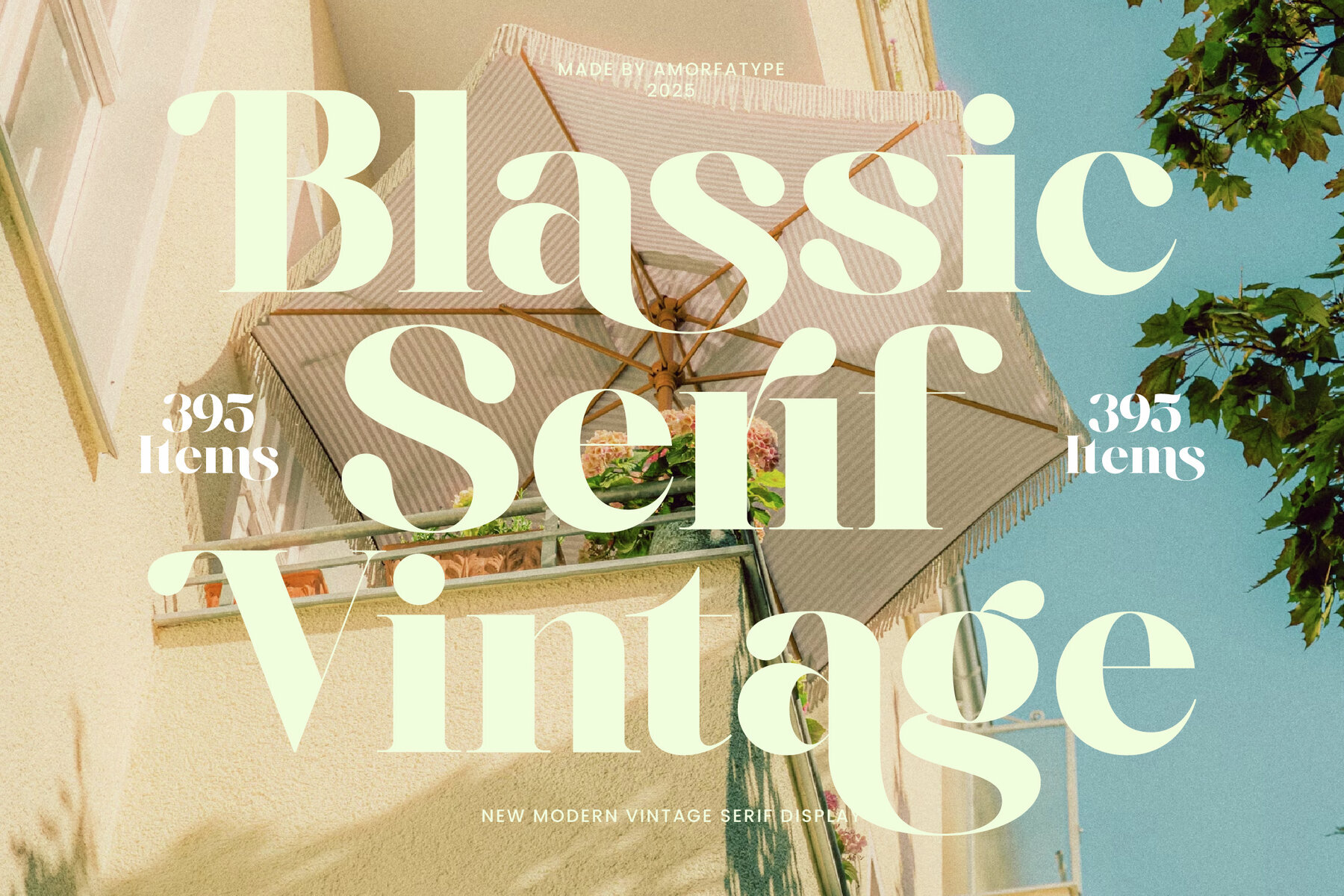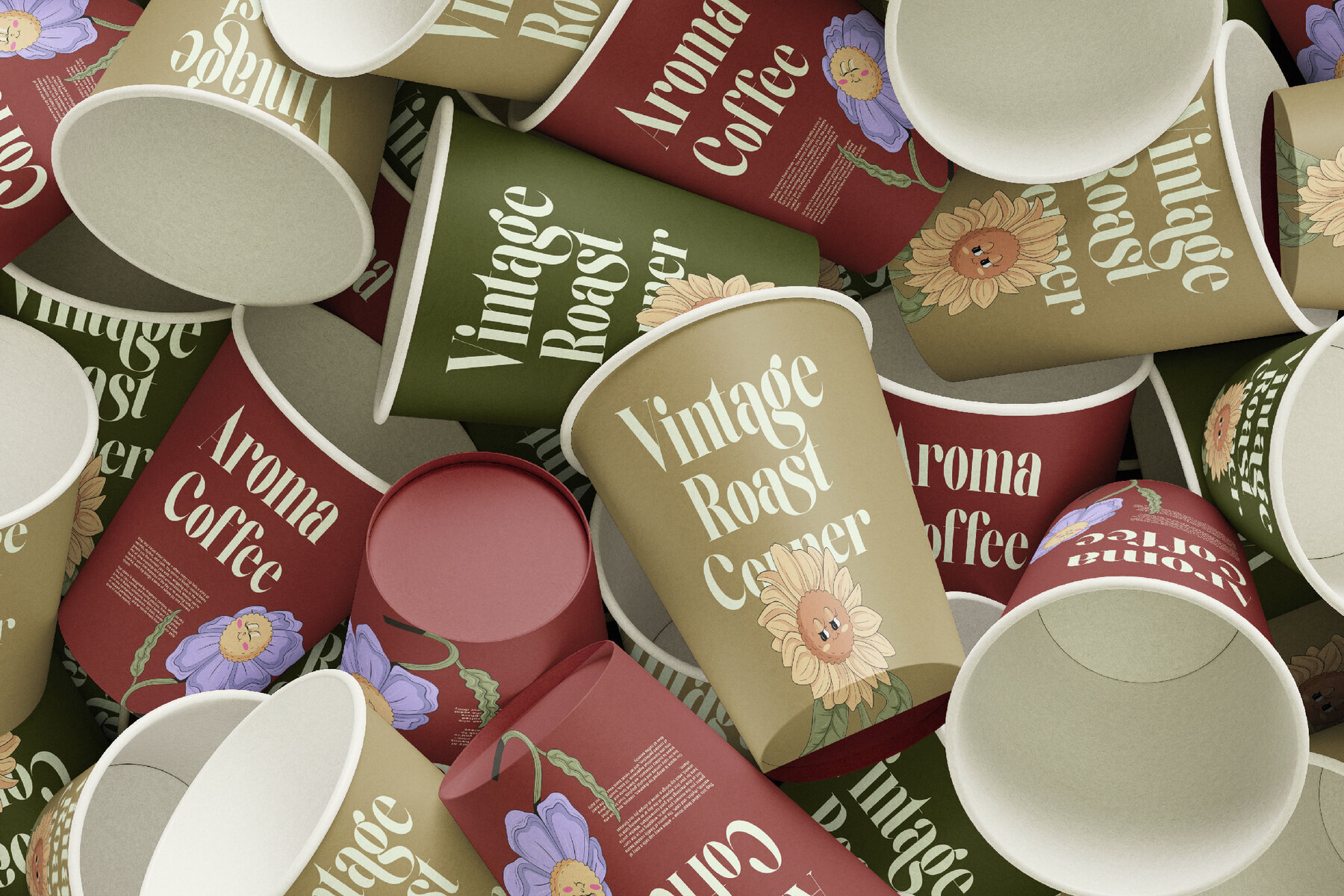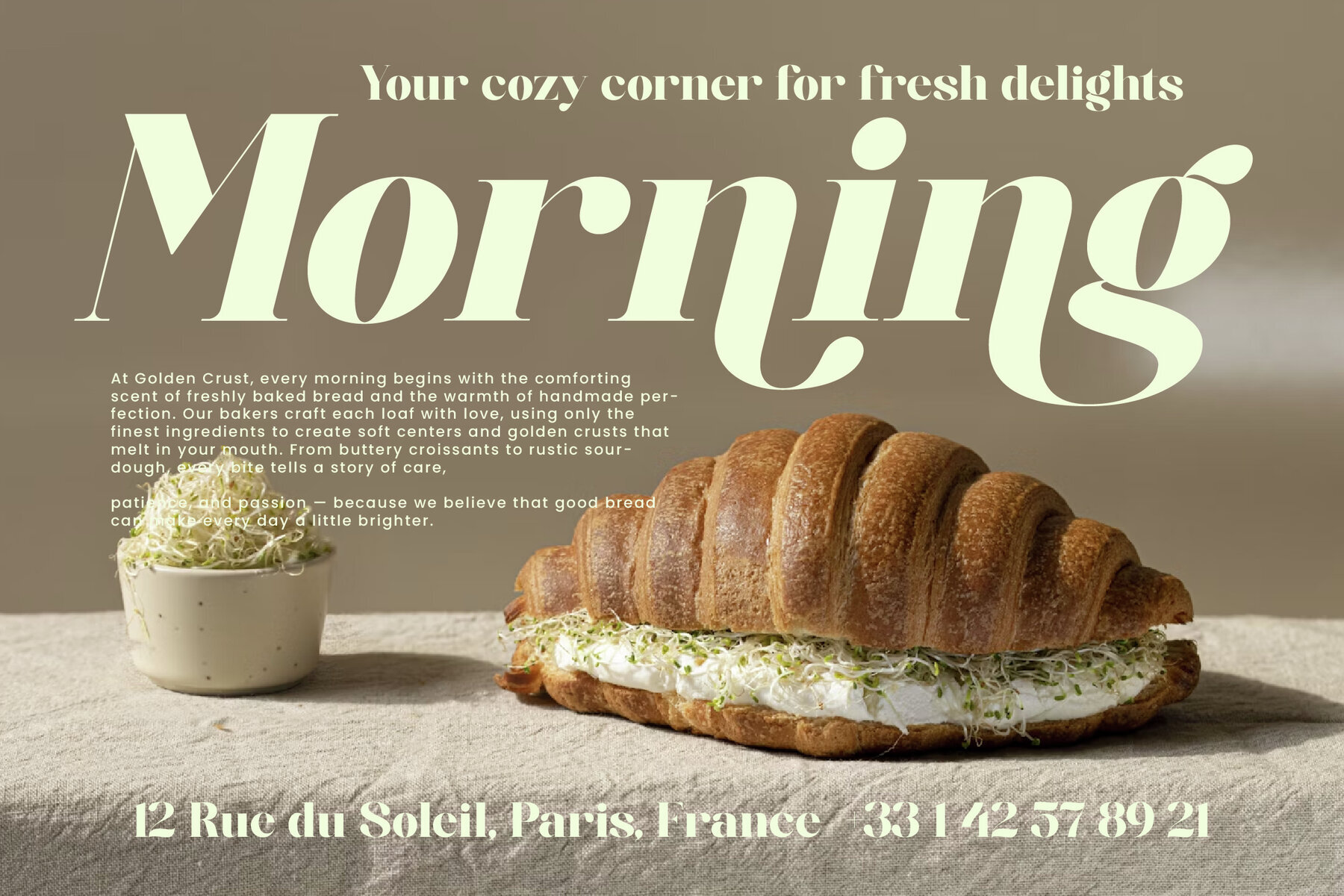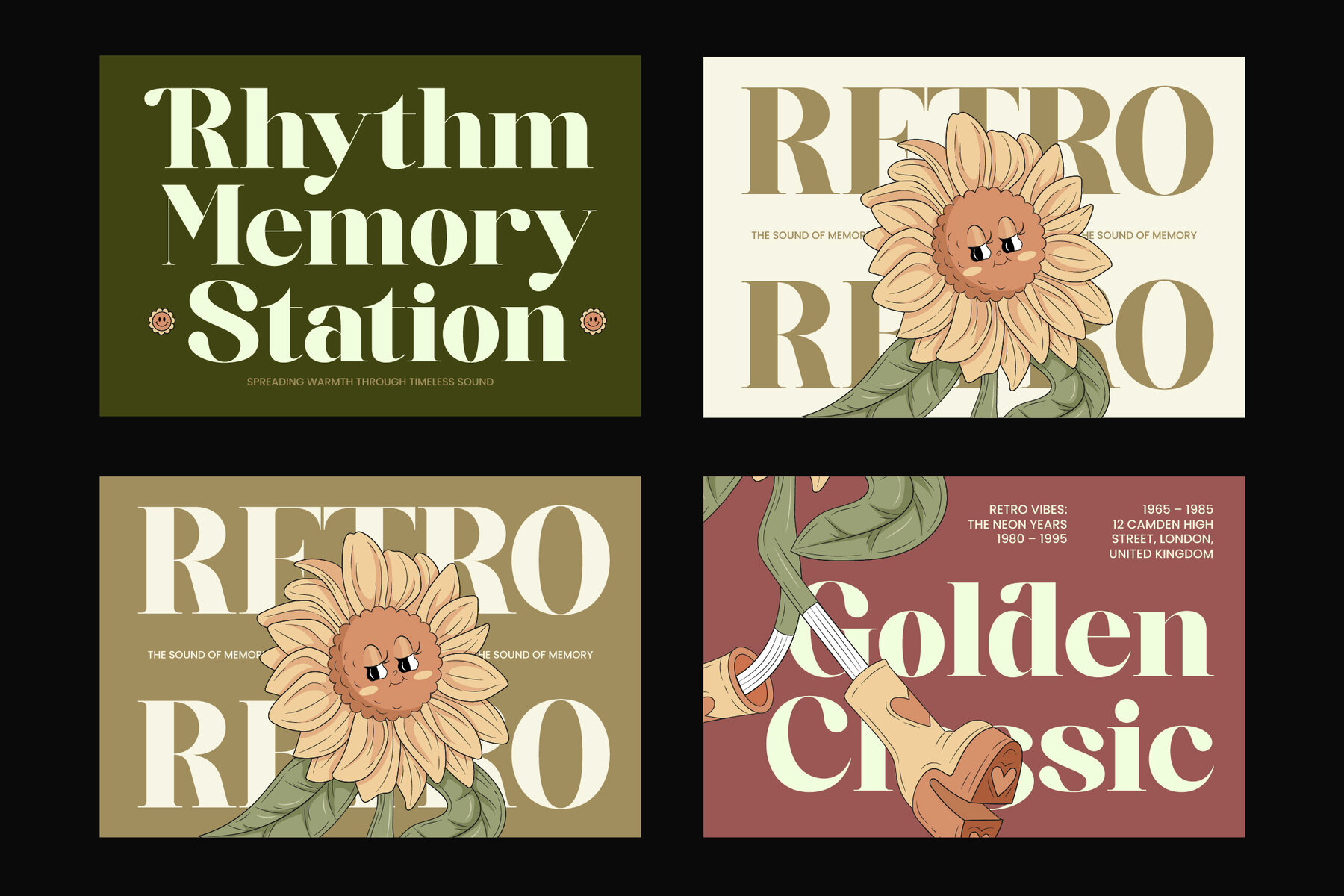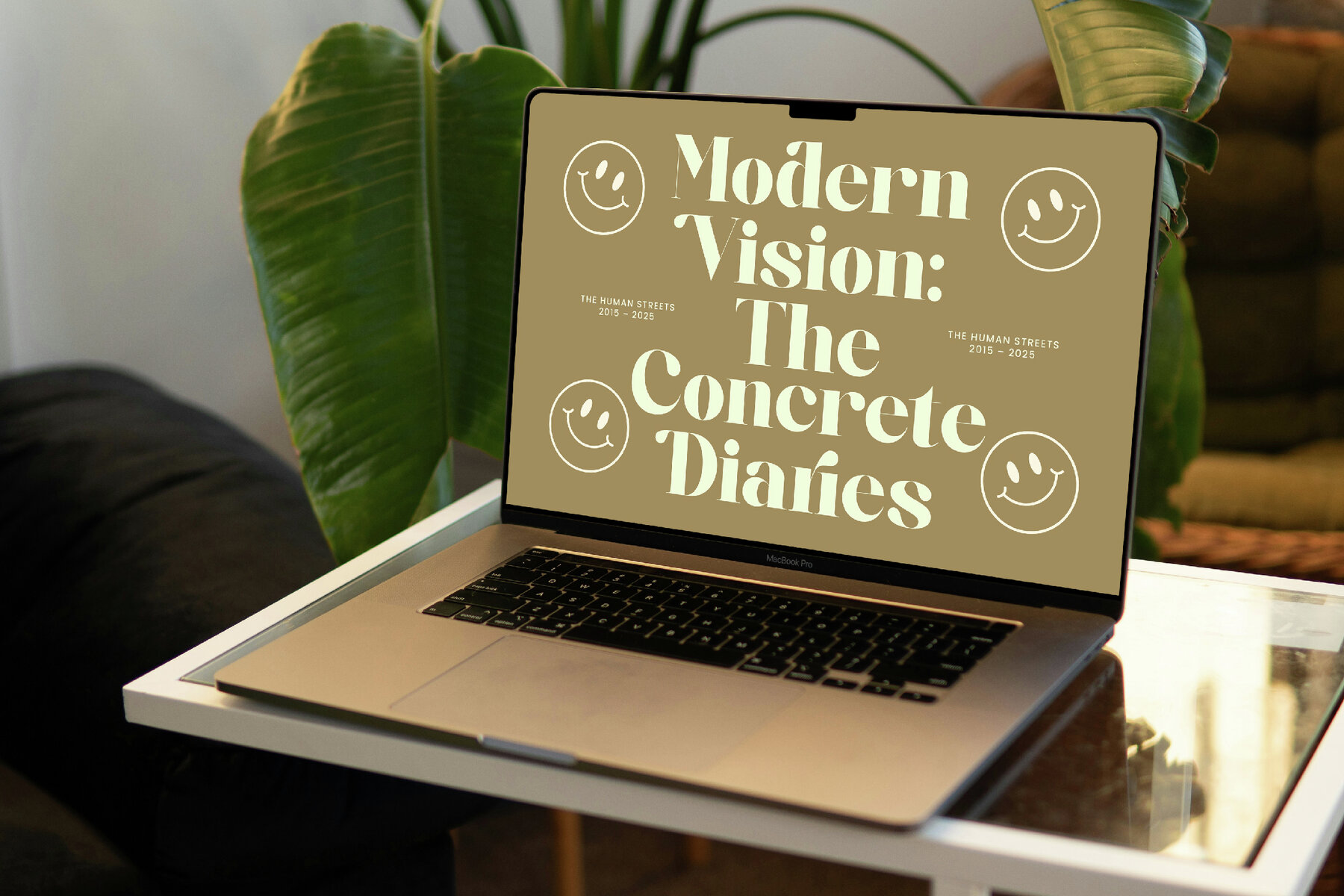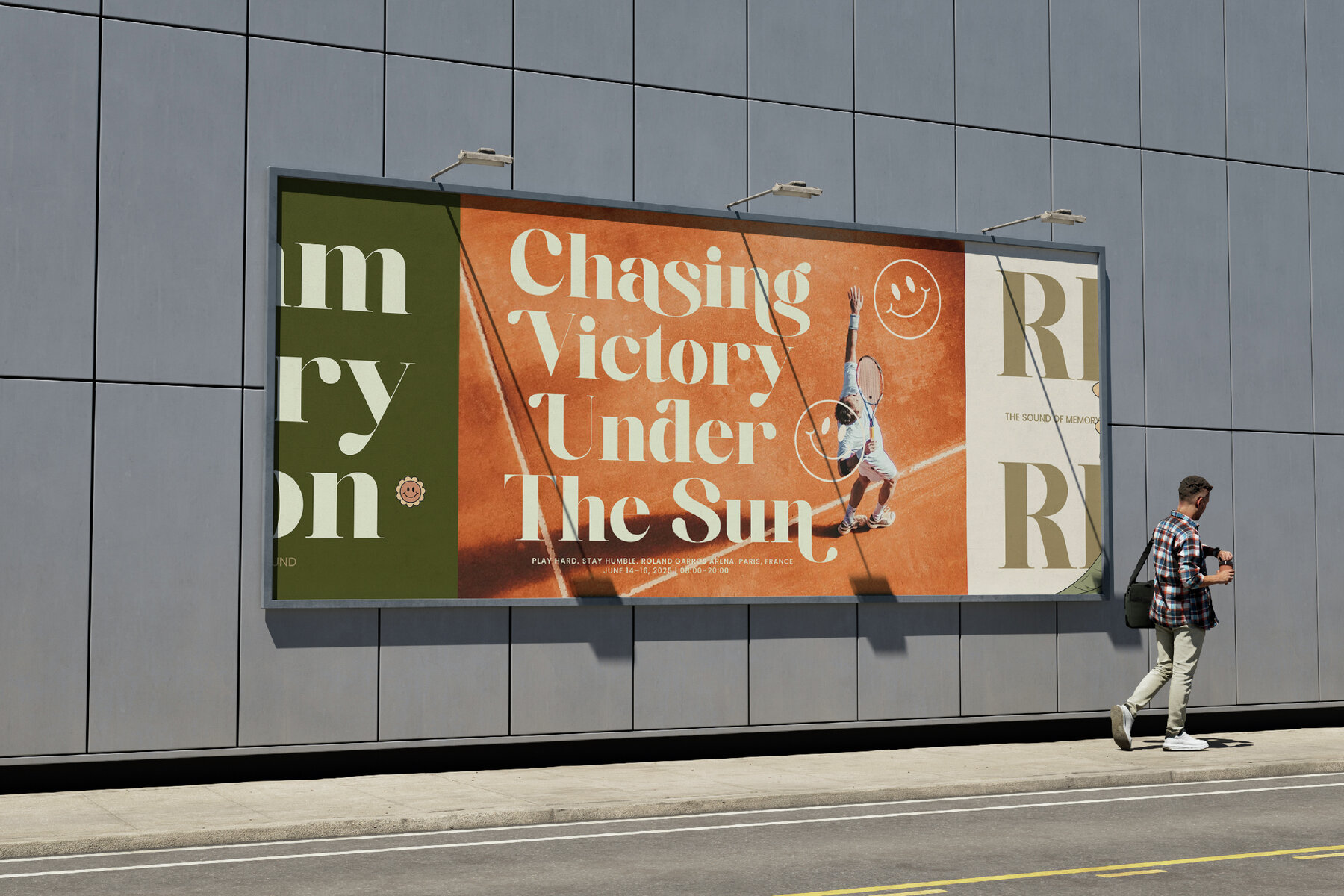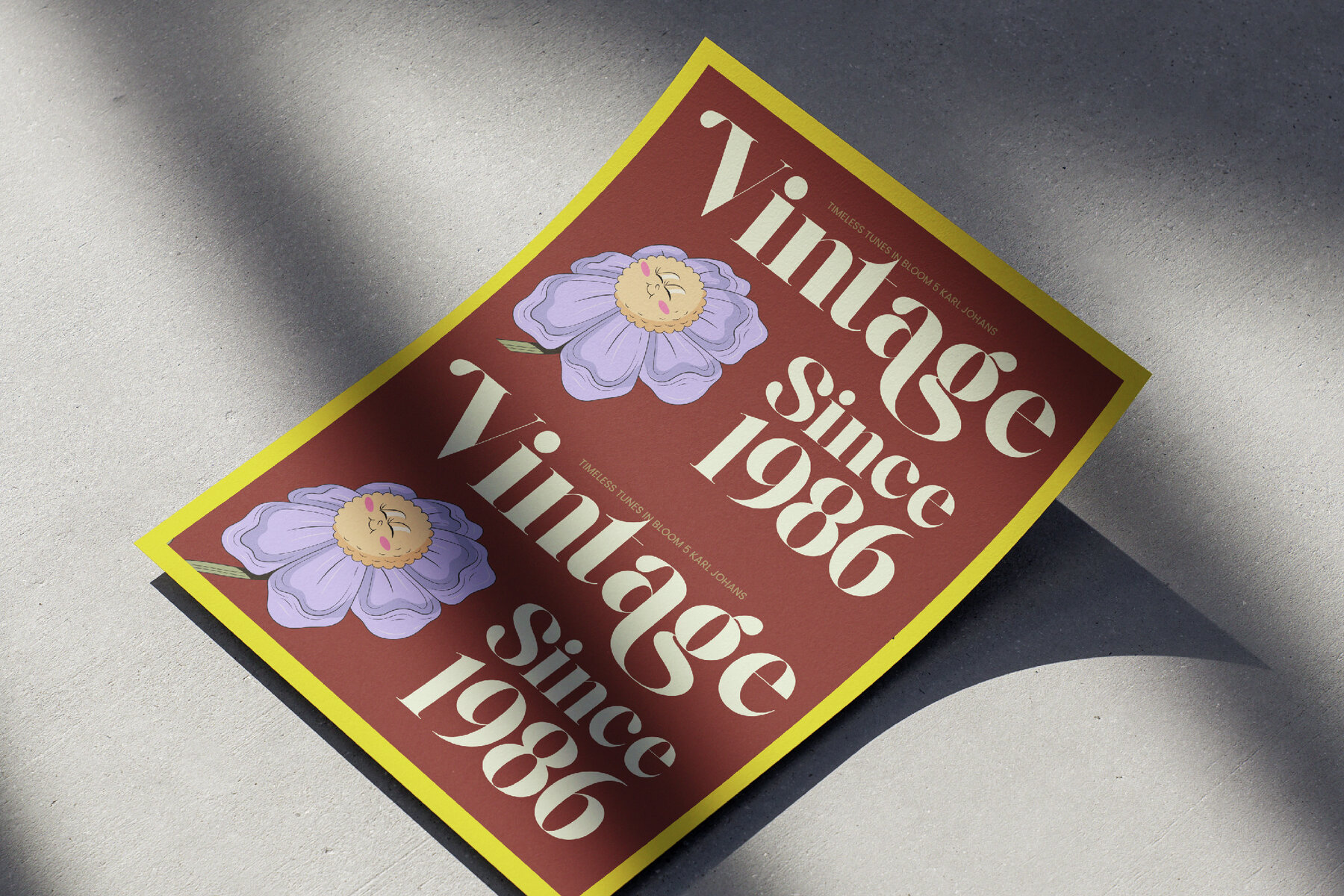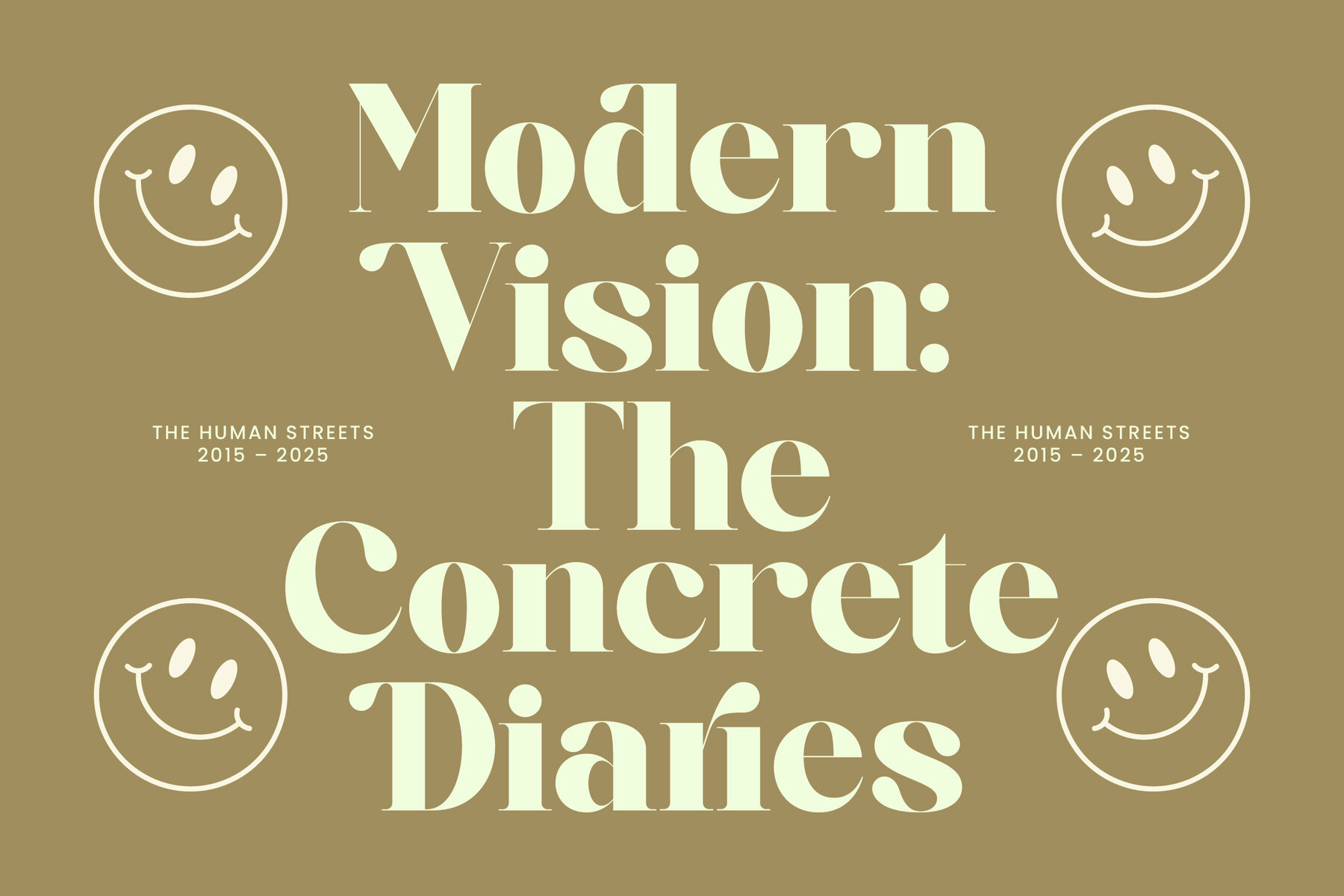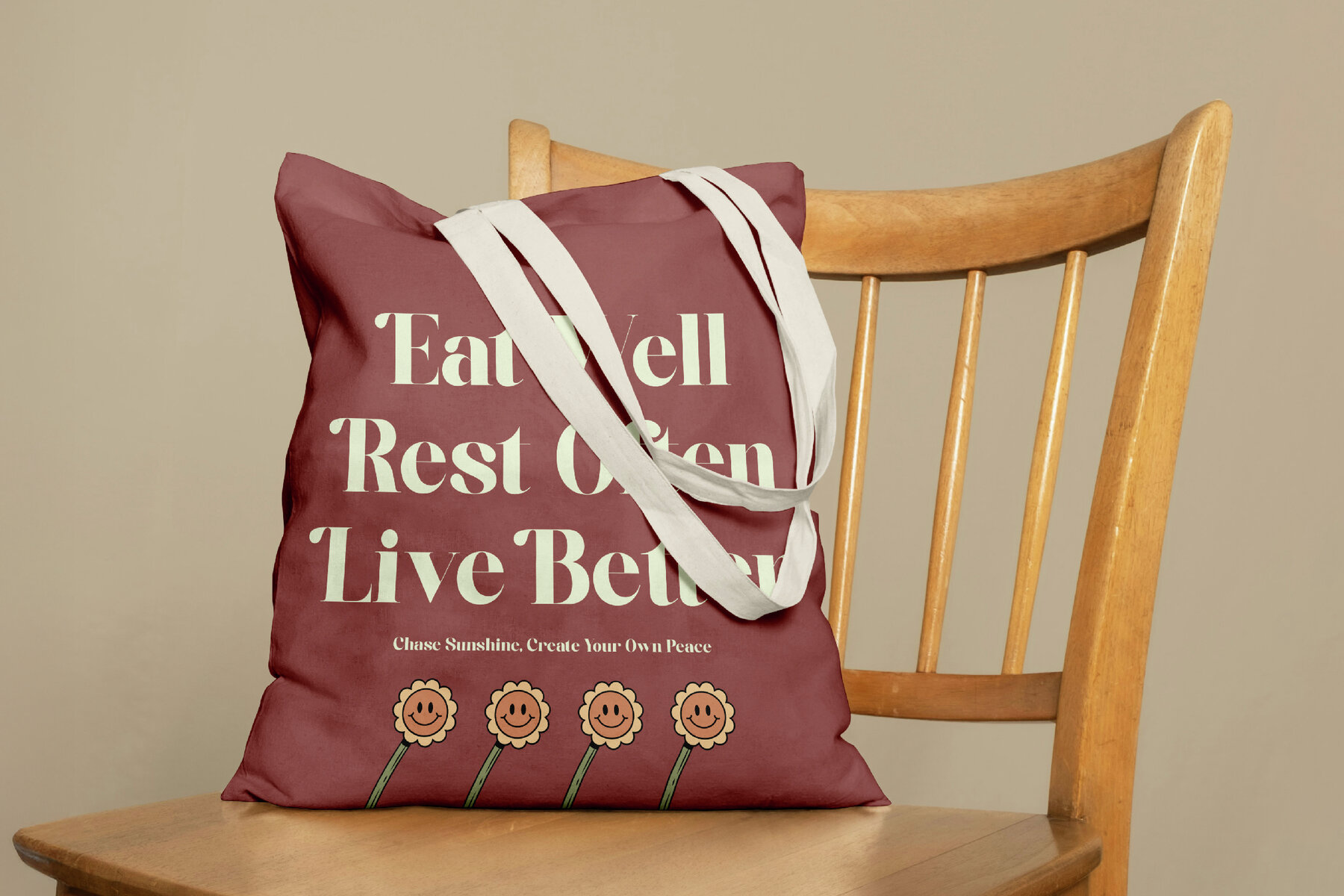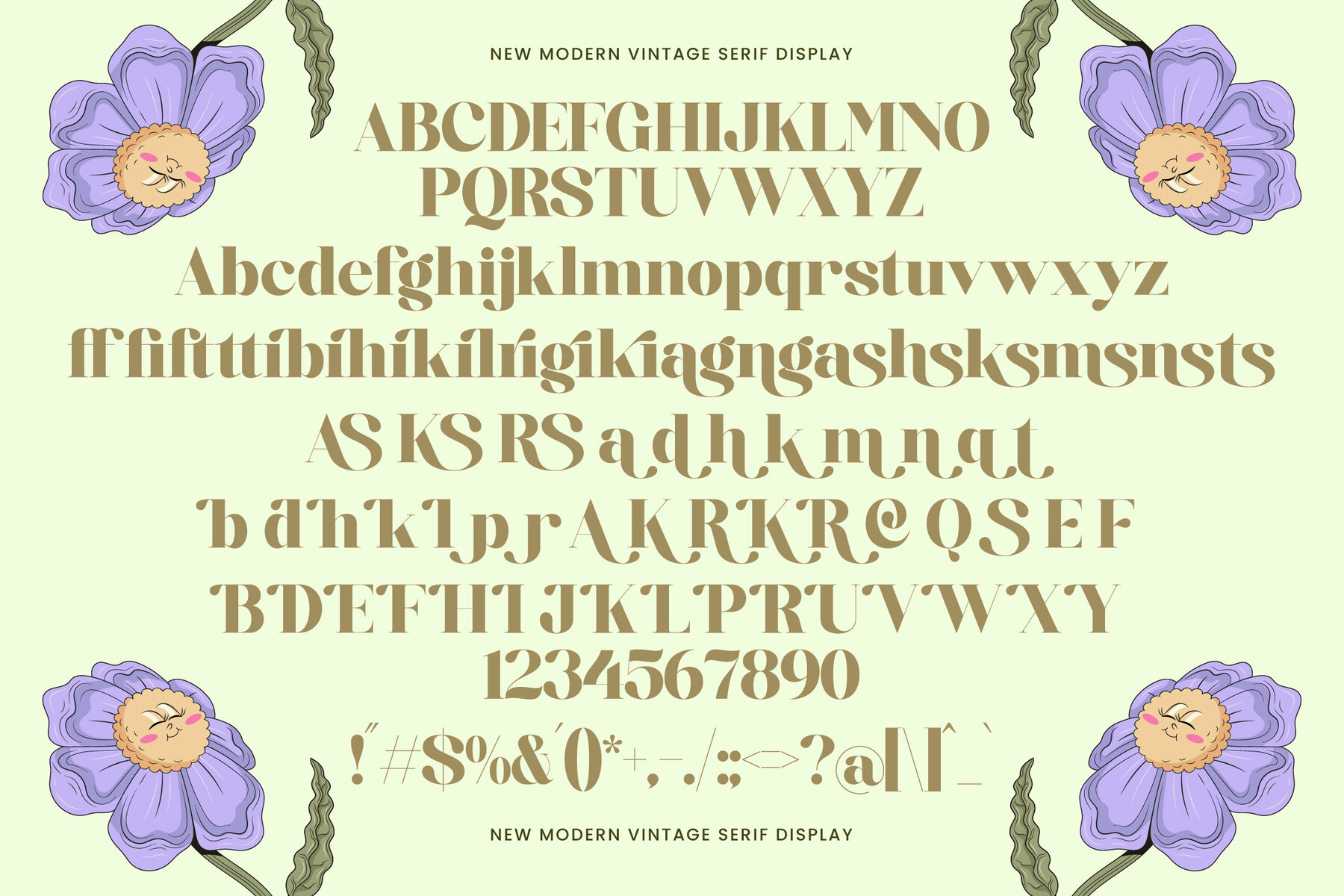
Blassic Font
Blassic merges refined contemporary elements with the enduring character of vintage typography. Crisp curves and balanced contrasts highlight a sense of heritage while staying relevant for modern design applications. This serif display font brings a subtle nostalgic flair, making it ideal for projects that call for timeless elegance with a sophisticated twist. Each letter is meticulously designed, blending sharp precision with smooth sophistication. The inclusion of stylish alternates and distinctive ligatures allows for creative versatility—ideal for logos, packaging, editorial headlines, and elevated branding concepts. With 395 glyphs, including 41 alternates and 22 ligatures, designers have broad creative freedom for striking typographic compositions. Blassic balances luxury and adaptability, making it a distinctive foundation for high-end brand identities, magazine layouts, and vintage-inspired posters.Blassic: Modern Vintage Serif Display